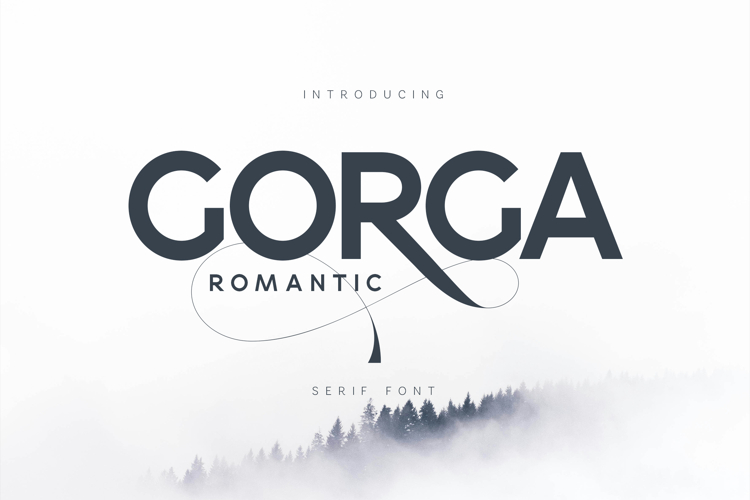
GORGA ROMANTIC Modern Sans Serif Font
Gorga Romantic is a modern serif font with soft curves and subtle romantic details, designed to feel warm, friendly, and contemporary. Its rounded shapes, smooth terminals, and balanced proportions create a welcoming tone that blends modern minimalism with emotional character.
This typeface is perfect for branding, lifestyle projects, editorial design, social media graphics, packaging, websites, and creative headlines that need personality without losing clarity. Gorga Romantic stands out with its gentle flow and distinctive letterforms, making it ideal for brands that want to feel human, calm, and expressive.
Designed for modern creatives, Gorga Romantic brings softness, confidence, and elegance into one versatile serif typeface.